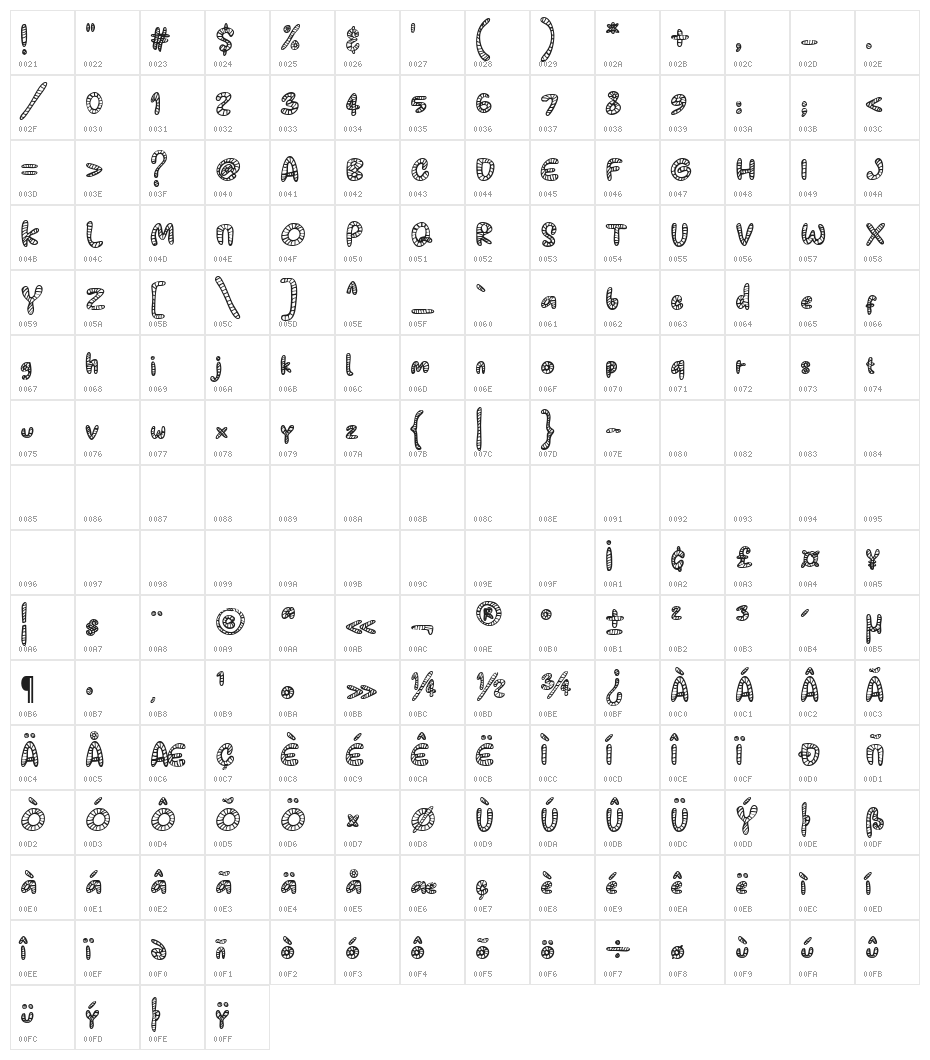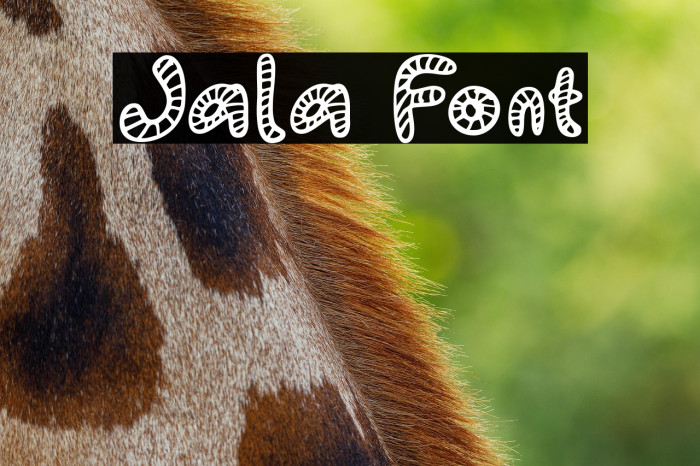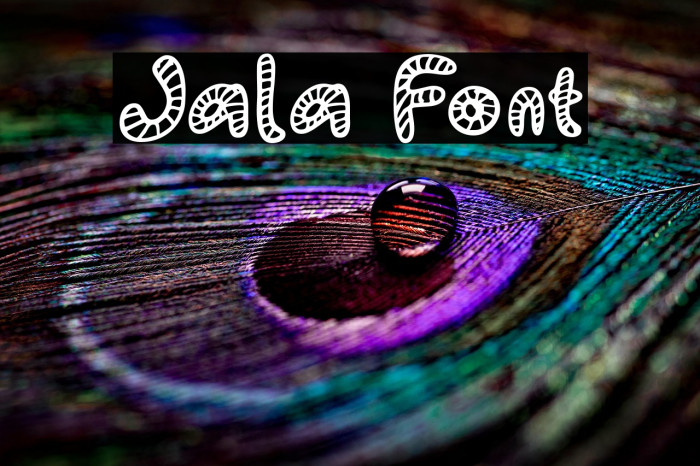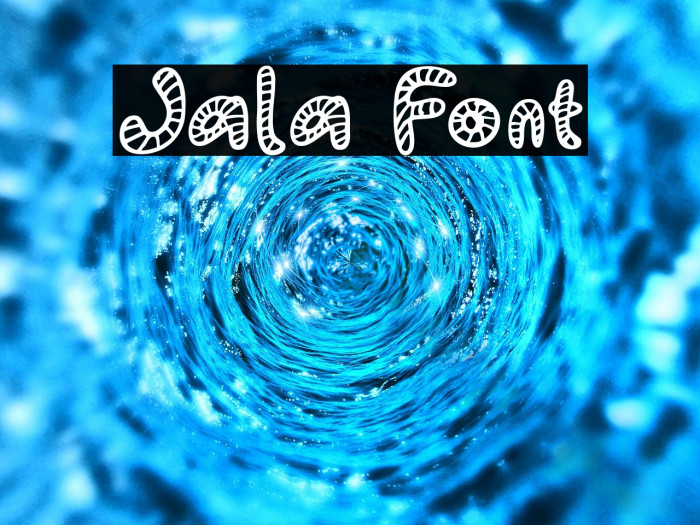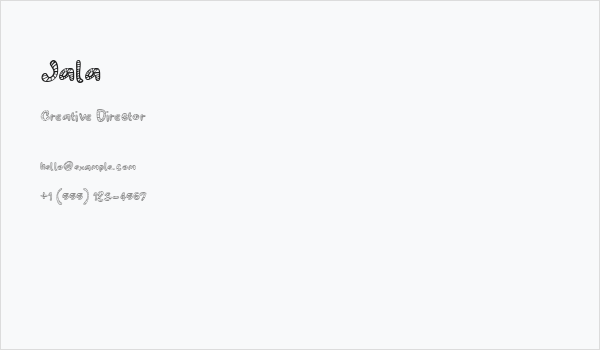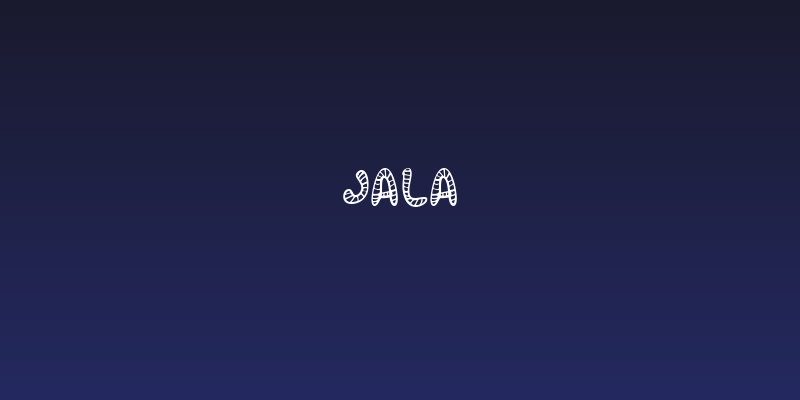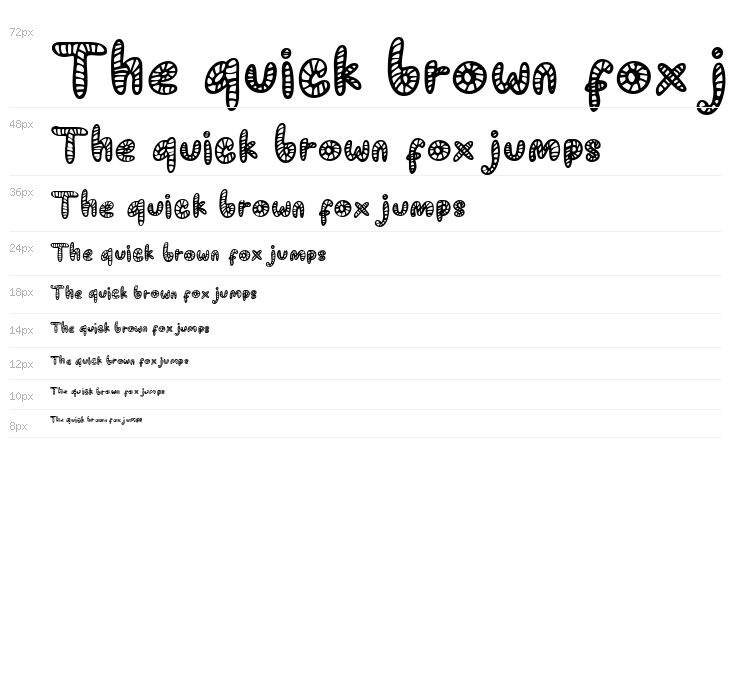
Jala Font
Jala Description
This playful and whimsical font features bold, rounded characters with a unique striped pattern filling each letter. The design is reminiscent of hand-drawn or doodle art, giving it a casual and fun appearance. The uppercase and lowercase letters maintain a consistent style, with each character exhibiting a slightly irregular shape that adds to its charm. Numbers and special characters follow the same aesthetic, ensuring a cohesive look across all text elements. The font's distinct style makes it ideal for projects that require a touch of creativity and personality.
| Overall Style | Whimsical, Playful |
| Proposed Projects | Ideal for children's books, playful branding, party invitations, and creative posters. |